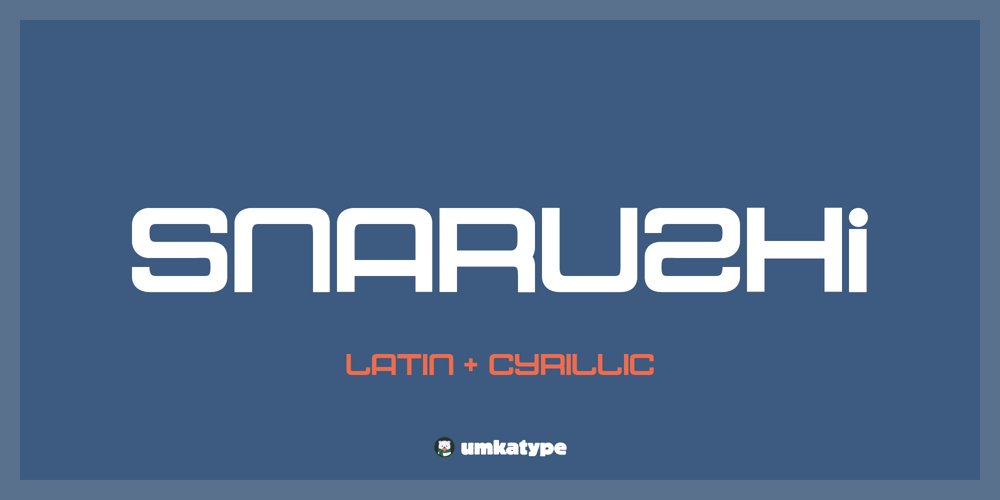
Snaruzhi Font Family was designed by Alper Çakıcı and published by Umka Type. Snaruzhi contains 1 styles and family package options. “Snaruzhi is a modern and versatile typeface, meticulously designed with excellent kerning for seamless digital and print applications. With comprehensive support for the Cyrillic language, Snaruzhi enables effortless multilingual communication. Its unique blend of classic proportions and contemporary elements sets it apart, making Snaruzhi stand out among fonts in its category.”Languages:Belarusian, Russian, Afrikaans, Albanian, Asu, Basque, Bemba, Bena, Breton, Catalan, Chiga, Colognian, Cornish, Croatian, Czech, Danish, Dutch, Embu, English, Esperanto, Estonian, Faroese, Filipino, Finnish, French, Friulian, Galician, German, Gusii, Hungarian, Indonesian, Irish, Italian, Kabuverdianu, Kalenjin, Kamba, Kikuyu, Kinyarwanda, Latvian, Lithuanian, Lower Sorbian, Luo, Luxembourgish, Luyia, Machame, Makhuwa-Meetto, Makonde, Malagasy, Maltese, Manx, Meru, Morisyen, North Ndebele, Norwegian Bokmål, Norwegian Nynorsk, Nyankole, Oromo, Polish, Portuguese, Quechua, Romanian, Romansh, Rombo, Rundi, Rwa, Samburu, Sango, Sangu, Scottish Gaelic, Sena, Serbian, Shambala, Shona, Slovak, Soga, Somali, Spanish, Swahili, Swedish, Swiss German, Taita, Teso, Turkish, Upper Sorbian, Uzbek (Latin), Volapük, Vunjo, Walser, Welsh, Western Frisian, Zulu.